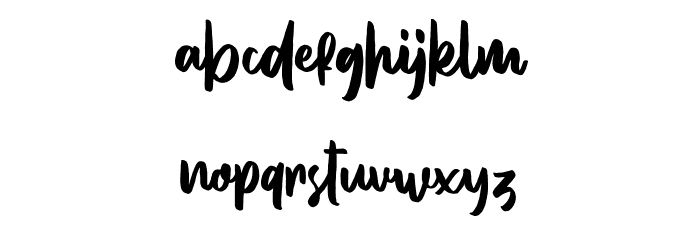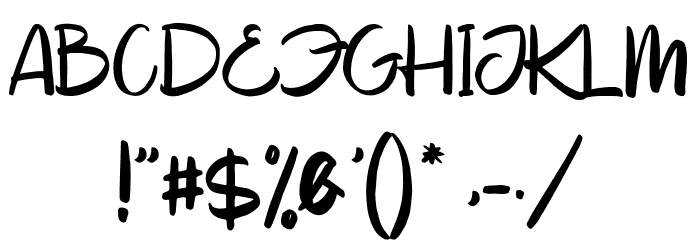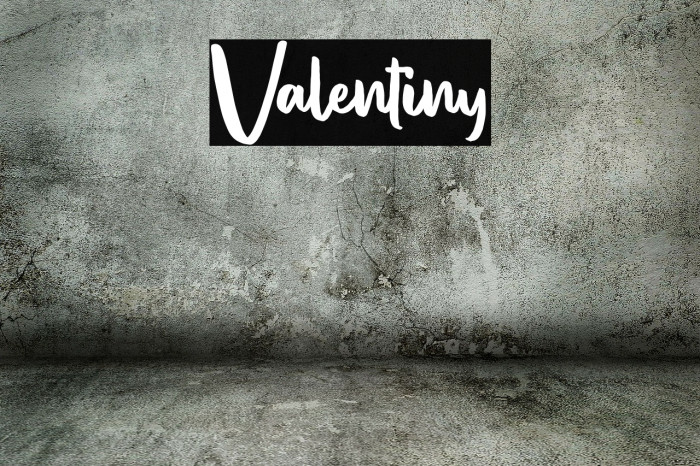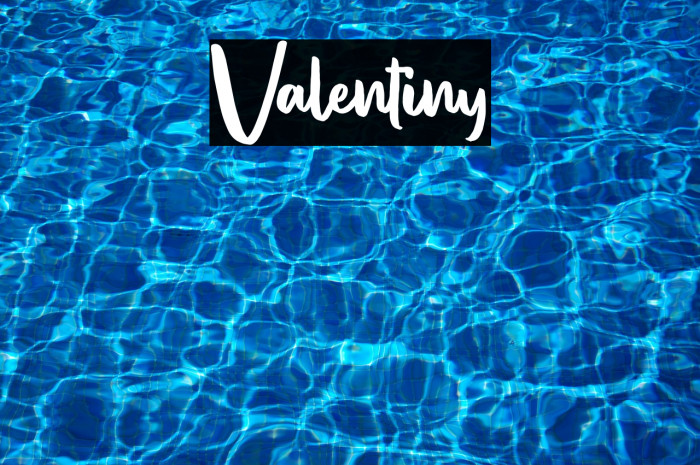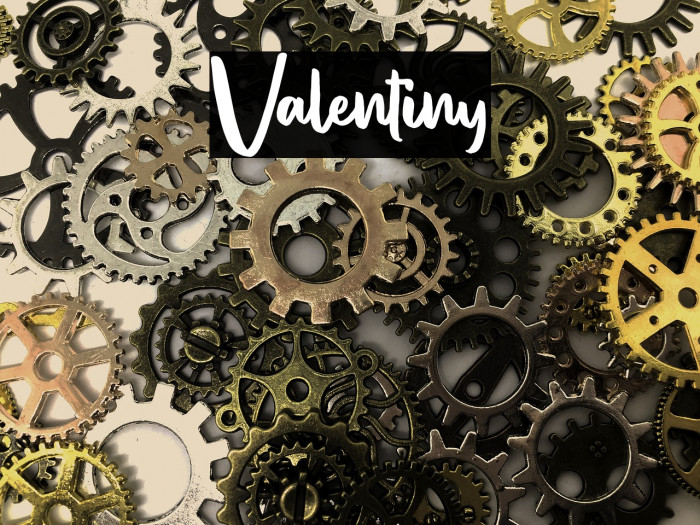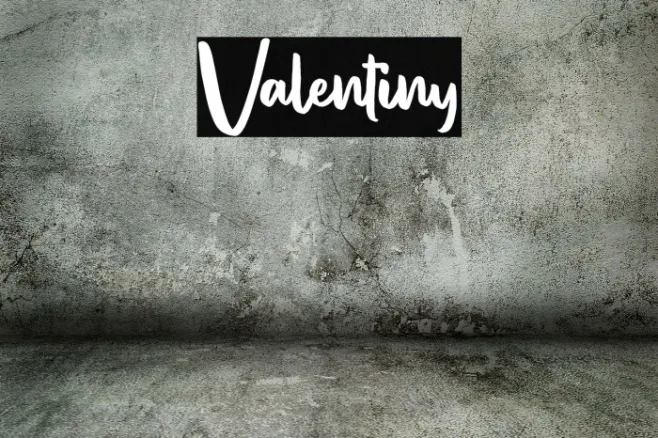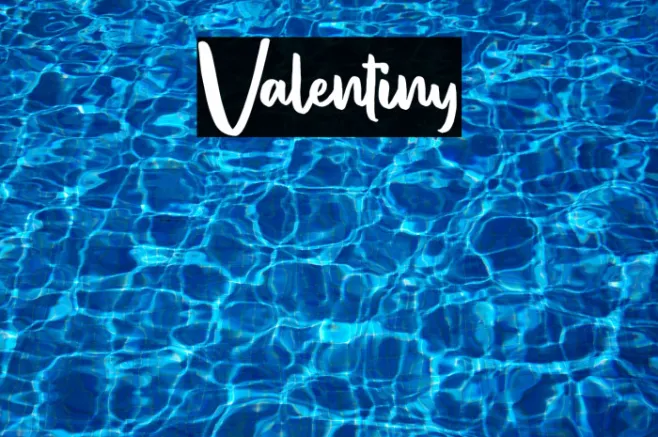
Valentiny Font
This font exudes a playful and artistic flair, characterized by its bold and expressive strokes. The letters are crafted with a sense of movement and fluidity, giving it a handwritten appearance. The uppercase letters are particularly striking, with exaggerated curves and loops that add a whimsical touch. The lowercase letters maintain a consistent style, complementing the uppercase with their own unique charm. The numbers and special characters follow the same design ethos, ensuring a cohesive look across all elements. This font is perfect for projects that require a personal and creative touch, such as invitations, greeting cards, or artistic branding.
A bold, expressive handwritten font with playful curves and fluid strokes.